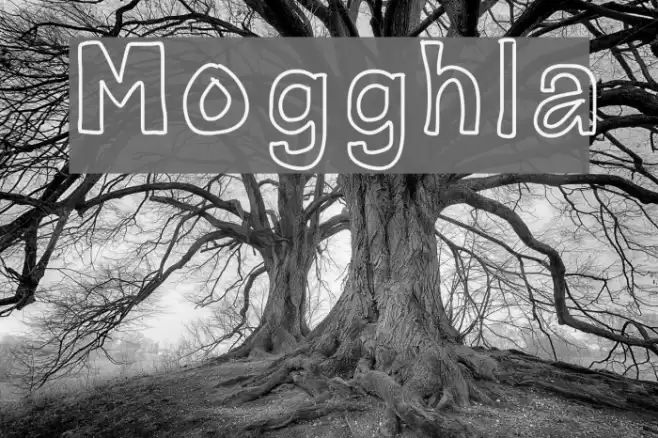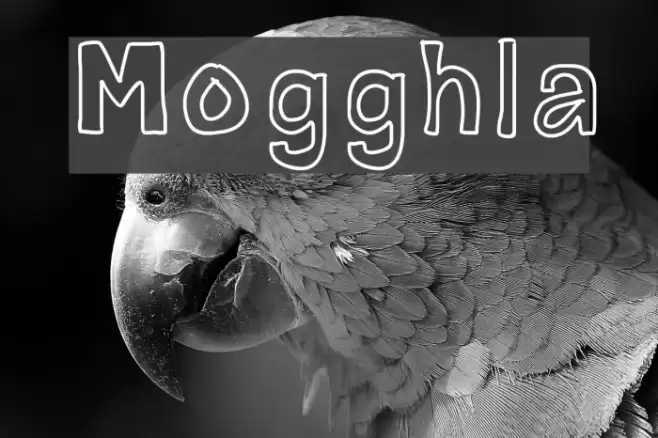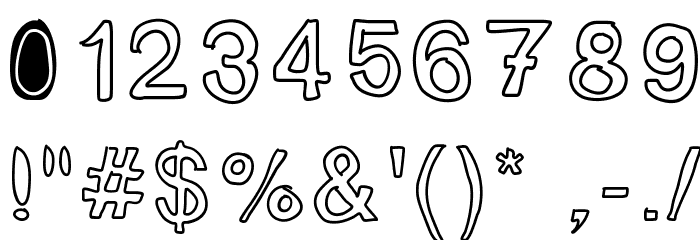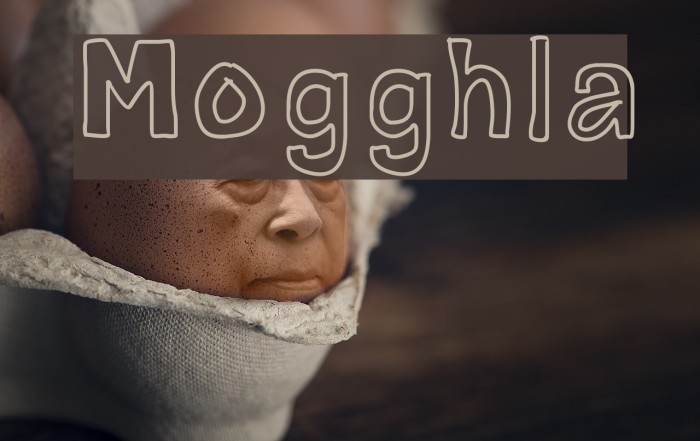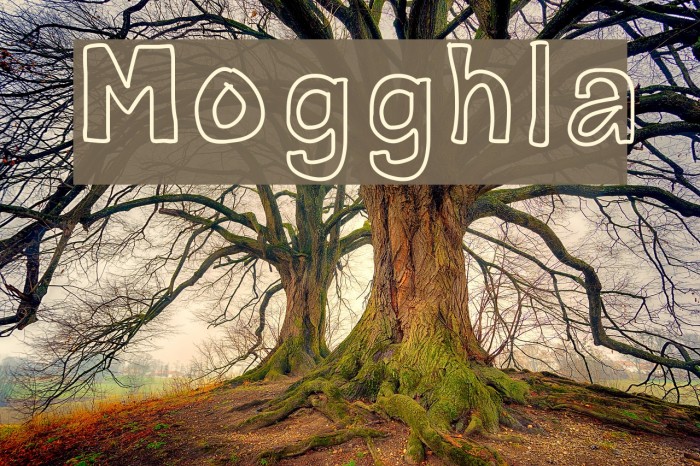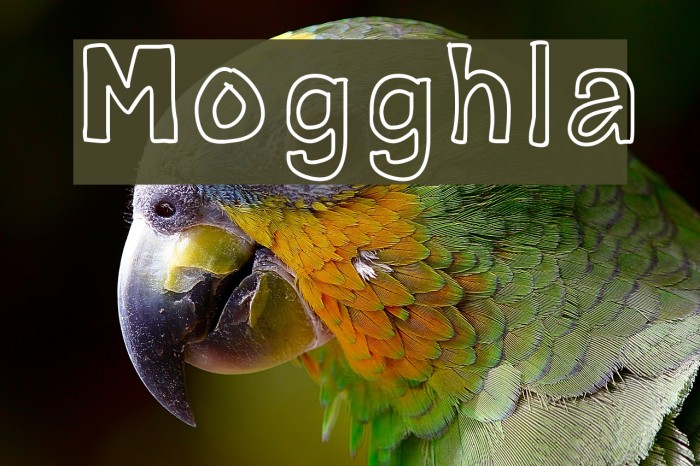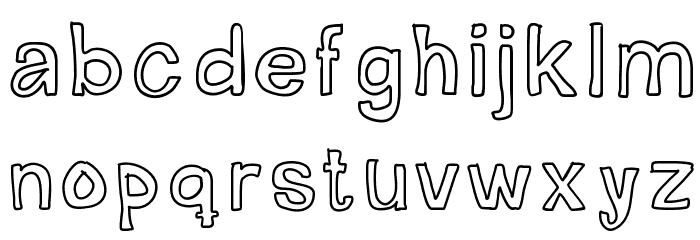
Mogghla Font
Mogghla Description
This playful and bold font features a unique outline style that gives it a lively and dynamic appearance. The characters are rounded and slightly irregular, adding a whimsical touch to the overall design. The uppercase and lowercase letters maintain a consistent style, with a slight variation in stroke width that adds to the font's charm. The numerals and special characters are equally engaging, making this font suitable for creative and informal projects. Its distinct outline makes it stand out, ensuring legibility while maintaining a fun and approachable aesthetic.
A playful, bold outline font with rounded, irregular characters from Cartoon fonts.
- Proposed Projects: Ideal for children's books, playful branding, party invitations, and creative posters.
- Overall Style: Playful, Whimsical